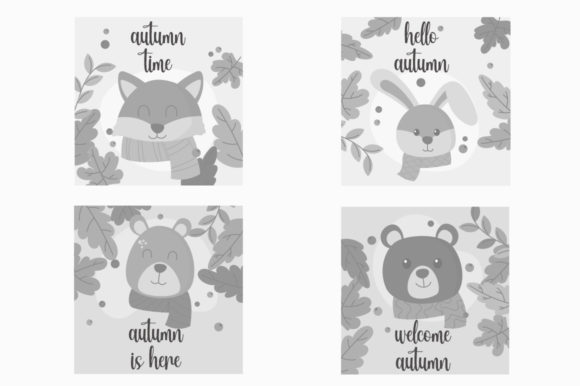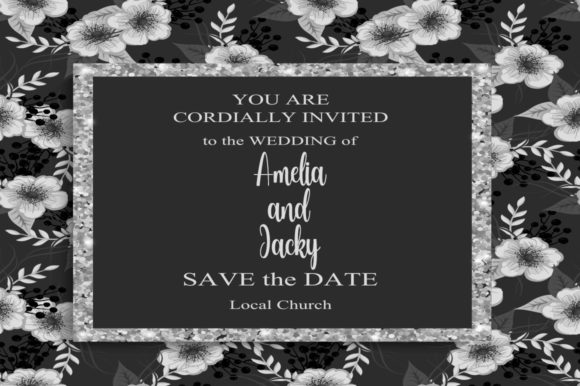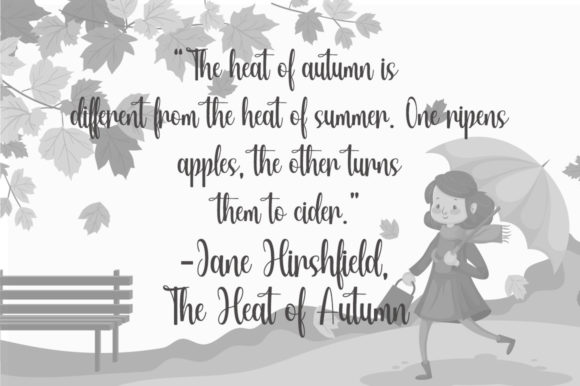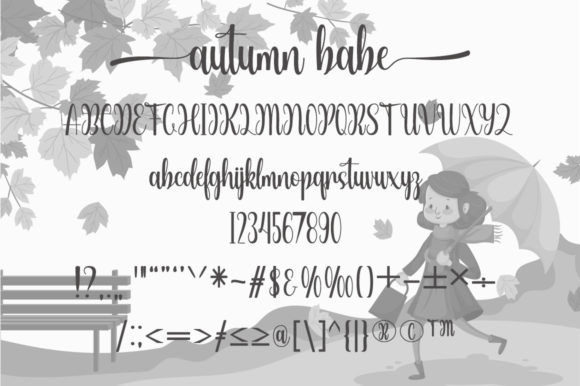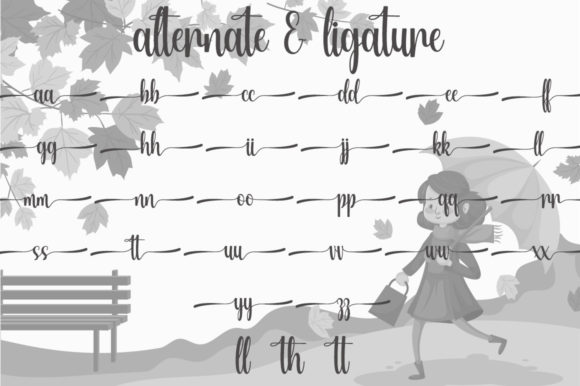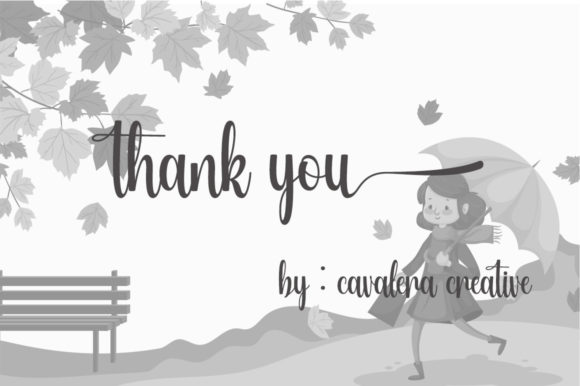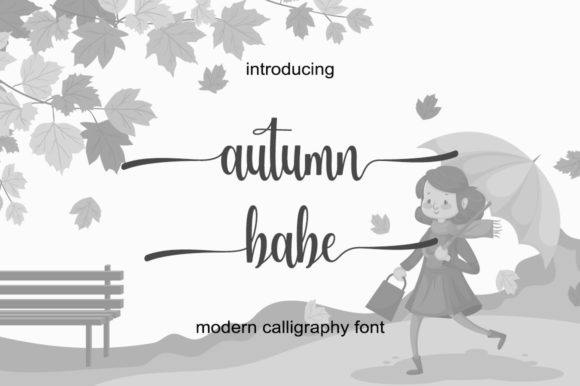
Introducing Autumn Babe Font: The Ultimate Romantic Calligraphy Typeface
Are you a designer or crafter looking for a font that exudes romance and sweetness? Look no further than Autumn Babe Font, a stunning calligraphy typeface that is sure to add a touch of luxury to any design project. With its unique and elegant characters that dance along the baseline, Autumn Babe is the perfect choice for anyone looking to create beautiful and eye-catching designs.
The Charm of Autumn Babe Font
Autumn Babe Font is a romantic and sweet calligraphy typeface that is designed to make your design projects stand out. Its characters are carefully crafted to dance along the baseline, creating a sense of movement and fluidity that is sure to capture the attention of your audience. Whether you’re creating wedding invitations, branding materials, or social media graphics, Autumn Babe Font is the perfect choice for adding a touch of elegance and sophistication.
What Makes Autumn Babe Font Special?
So, what sets Autumn Babe Font apart from other calligraphy typefaces? For starters, it’s PUA encoded, which means you can access all of the glyphs and swashes with ease. This makes it easy to customize your designs and add your own personal touch. Additionally, Autumn Babe Font is highly versatile, making it suitable for a wide range of design projects, from logos and branding materials to packaging and advertising.
Key Features of Autumn Babe Font
- Romantic and sweet calligraphy typeface: Autumn Babe Font is designed to add a touch of romance and sweetness to your design projects.
- Characters that dance along the baseline: The unique characters of Autumn Babe Font are carefully crafted to create a sense of movement and fluidity.
- PUA encoded: With PUA encoding, you can access all of the glyphs and swashes with ease, making it easy to customize your designs.
- Highly versatile: Autumn Babe Font is suitable for a wide range of design projects, from logos and branding materials to packaging and advertising.
Tips and Tricks for Getting the Most Out of Autumn Babe Font
Here are a few tips and tricks for getting the most out of Autumn Babe Font:
- Experiment with different colors and textures: Autumn Babe Font looks great in a variety of colors and textures, so don’t be afraid to experiment and find the combination that works best for your design.
- Use it in combination with other fonts: Autumn Babe Font pairs well with a variety of other fonts, so try using it in combination with other typefaces to create a unique and eye-catching design.
- Take advantage of the glyphs and swashes: With its PUA encoding, Autumn Babe Font offers a wide range of glyphs and swashes that you can use to customize your designs.
Autumn Babe Font is a romantic and sweet calligraphy typeface that is sure to add a touch of luxury to any design project. With its unique and elegant characters, PUA encoding, and high versatility, it’s the perfect choice for designers and crafters looking to create beautiful and eye-catching designs. Whether you’re creating wedding invitations, branding materials, or social media graphics, Autumn Babe Font is the perfect choice for adding a touch of elegance and sophistication.